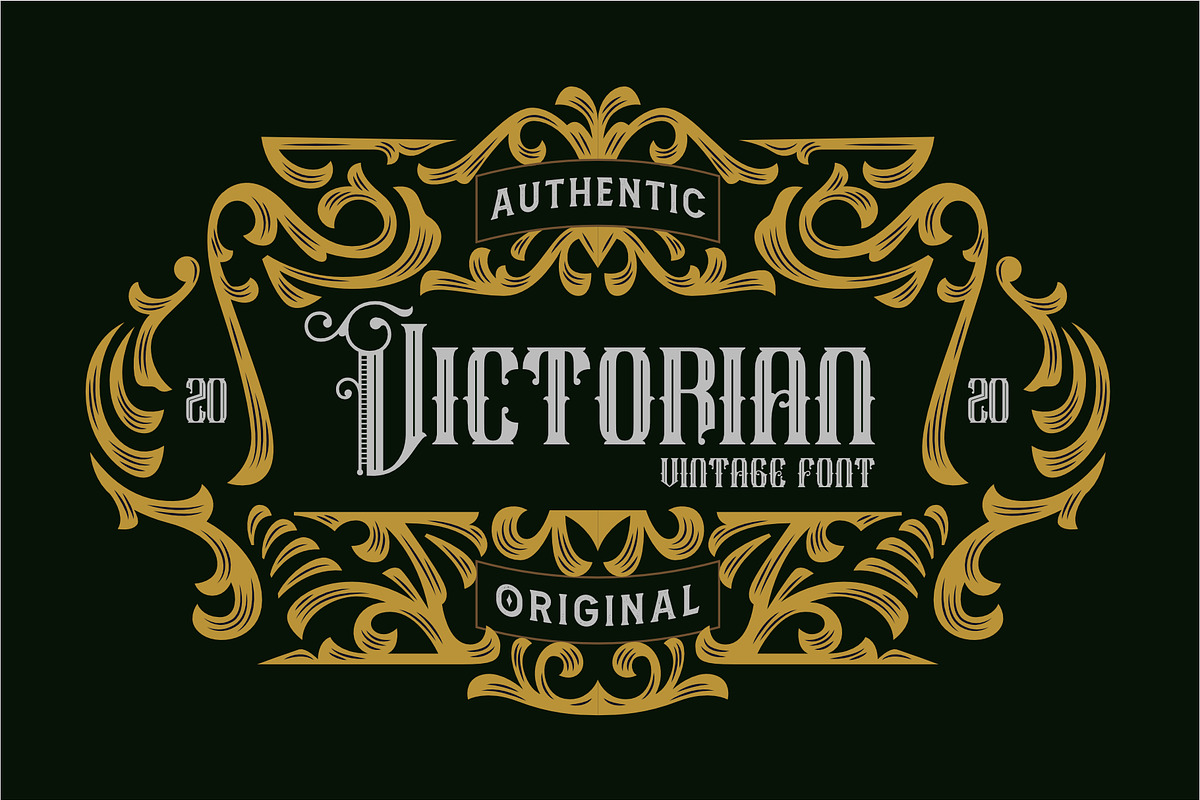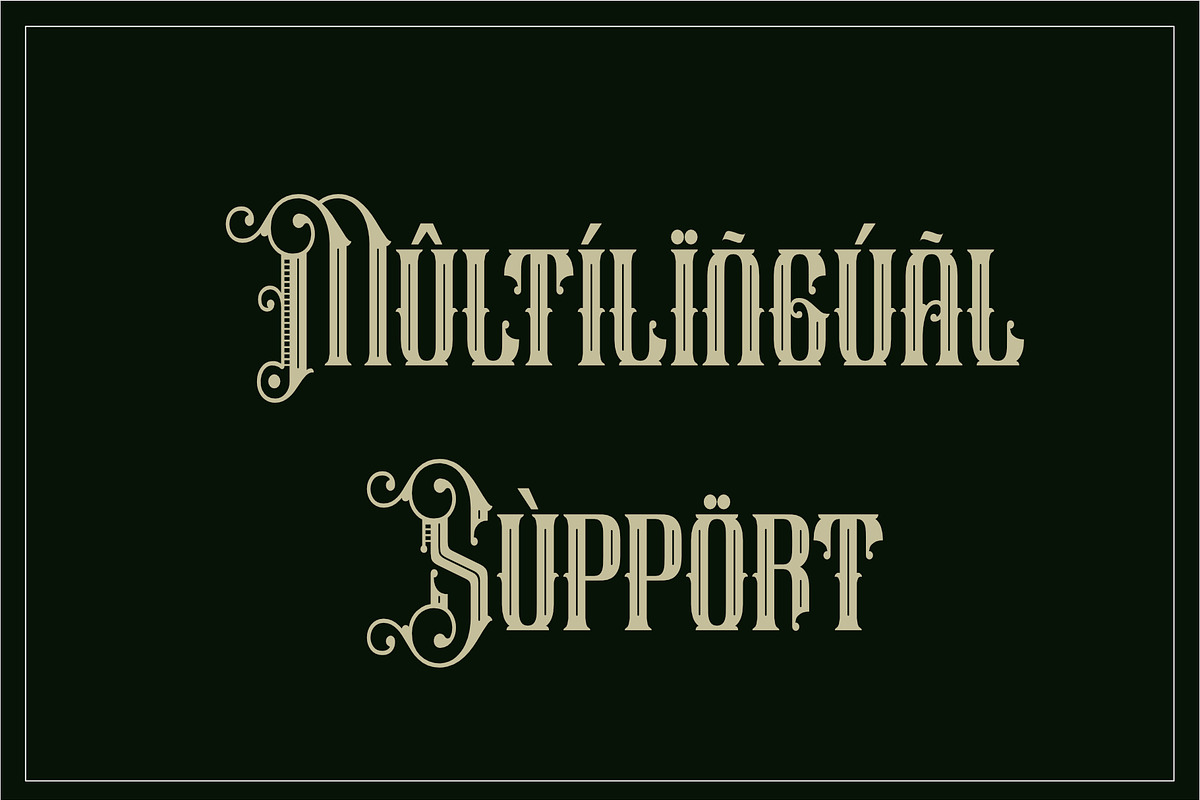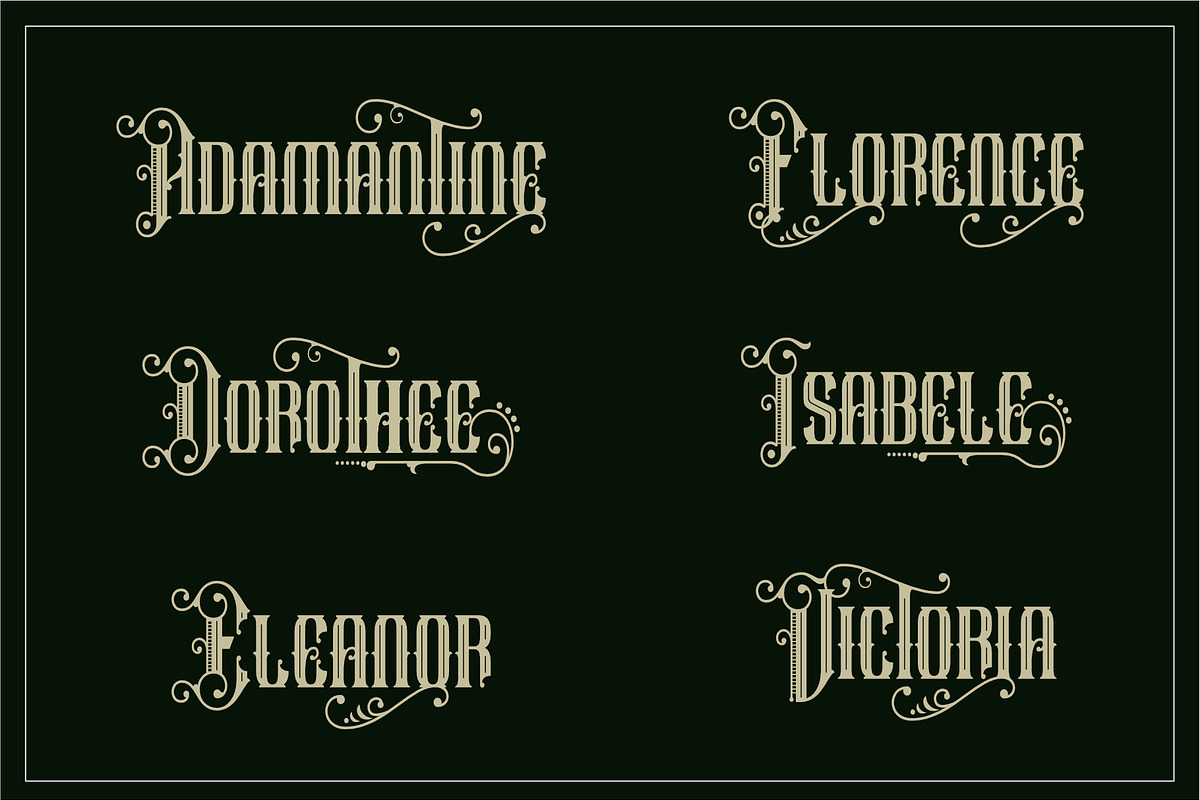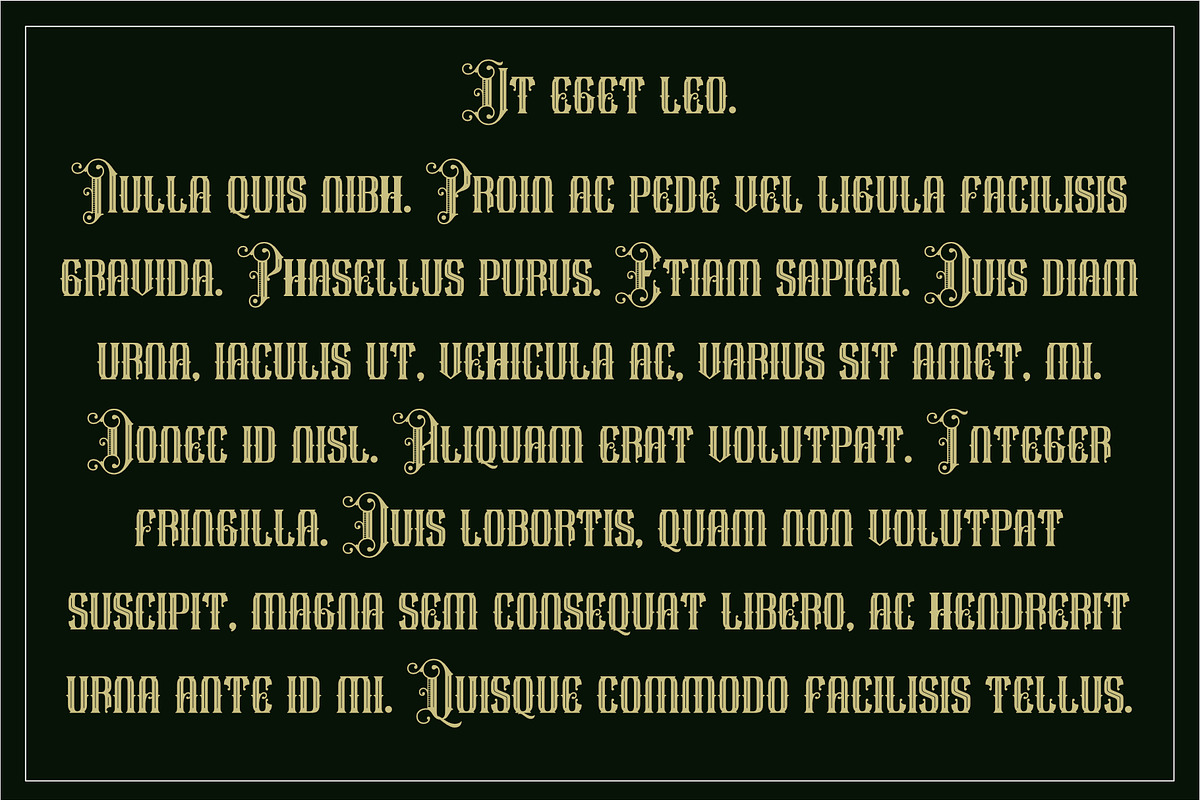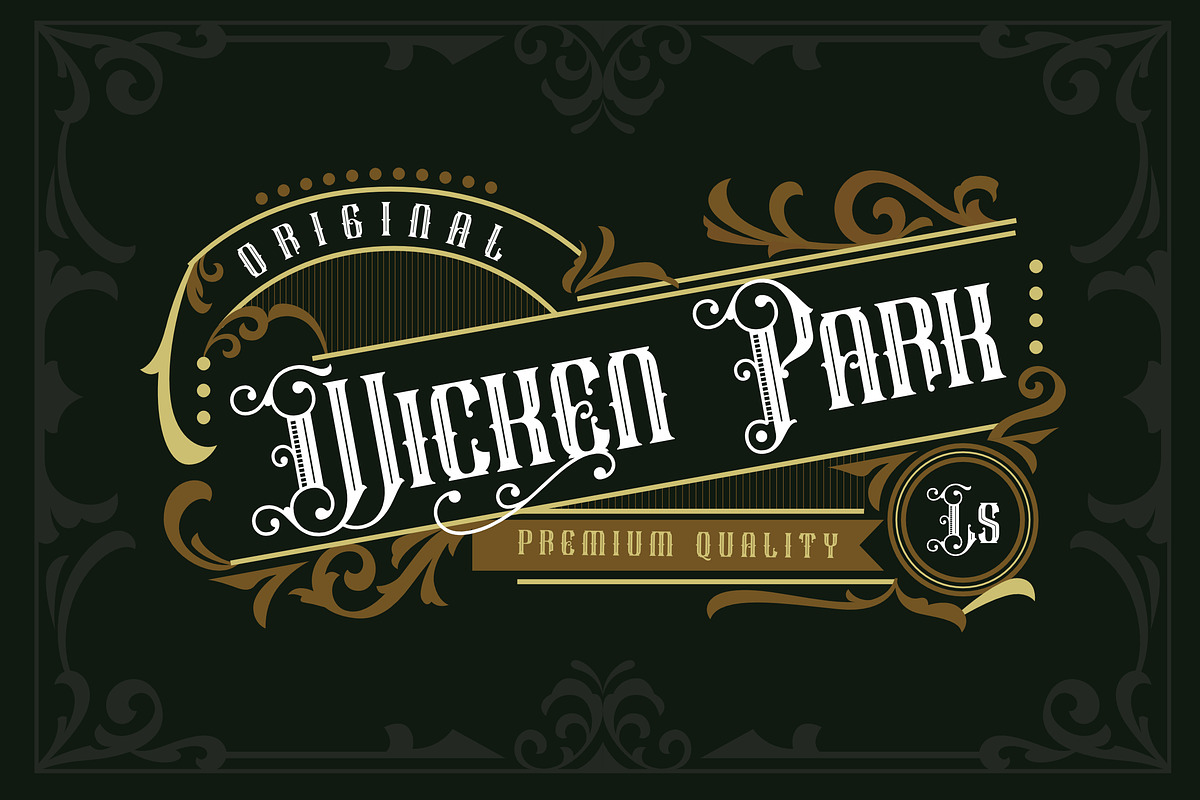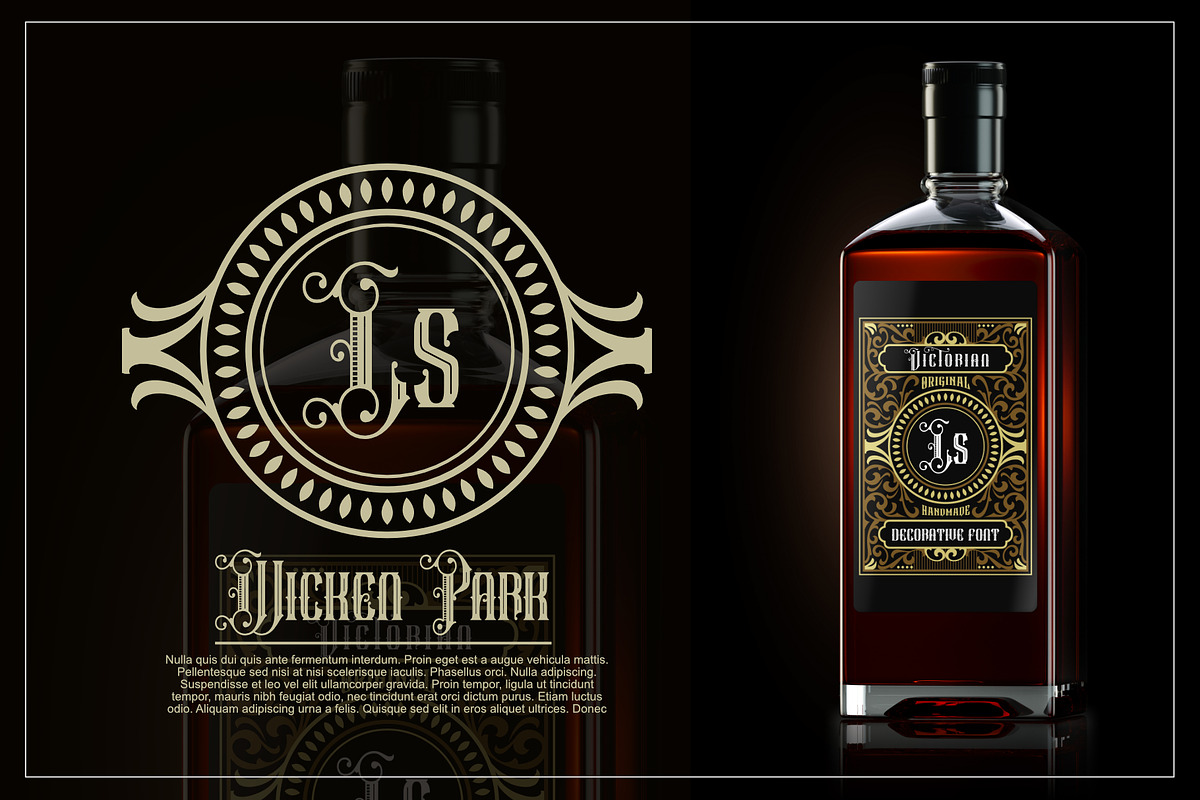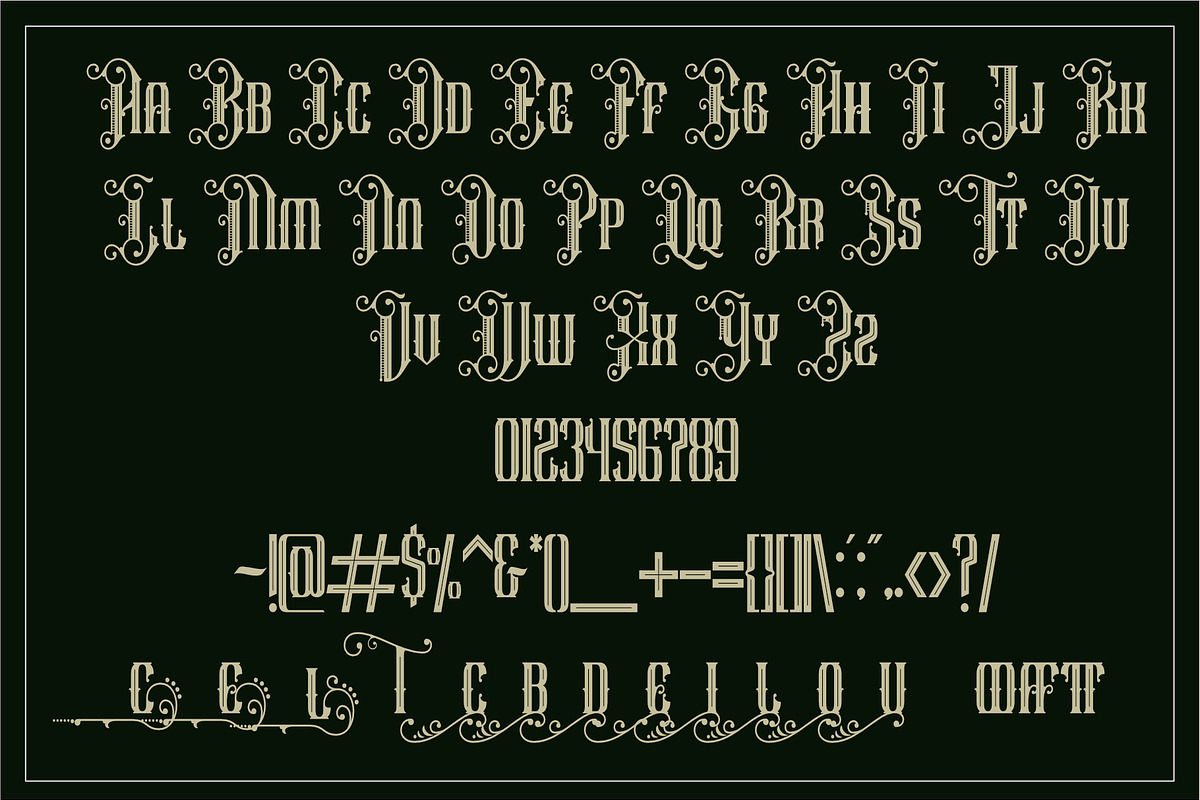
Wicken park
Wicken park Font
This pair was inspired by the retro motorcycle poster design that i saw on some coffee shop, It was crafted by hand specially to add natural handmade feeling in its brand identity than i make it clean with pentool.
Opentype features Wicken park font has 203 character set included Wicken park Font is very good looking in logo, labels, t-shirt prints, product packaging, invitations, advertising and others.